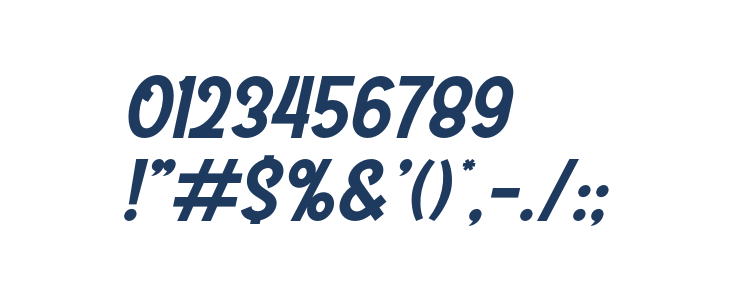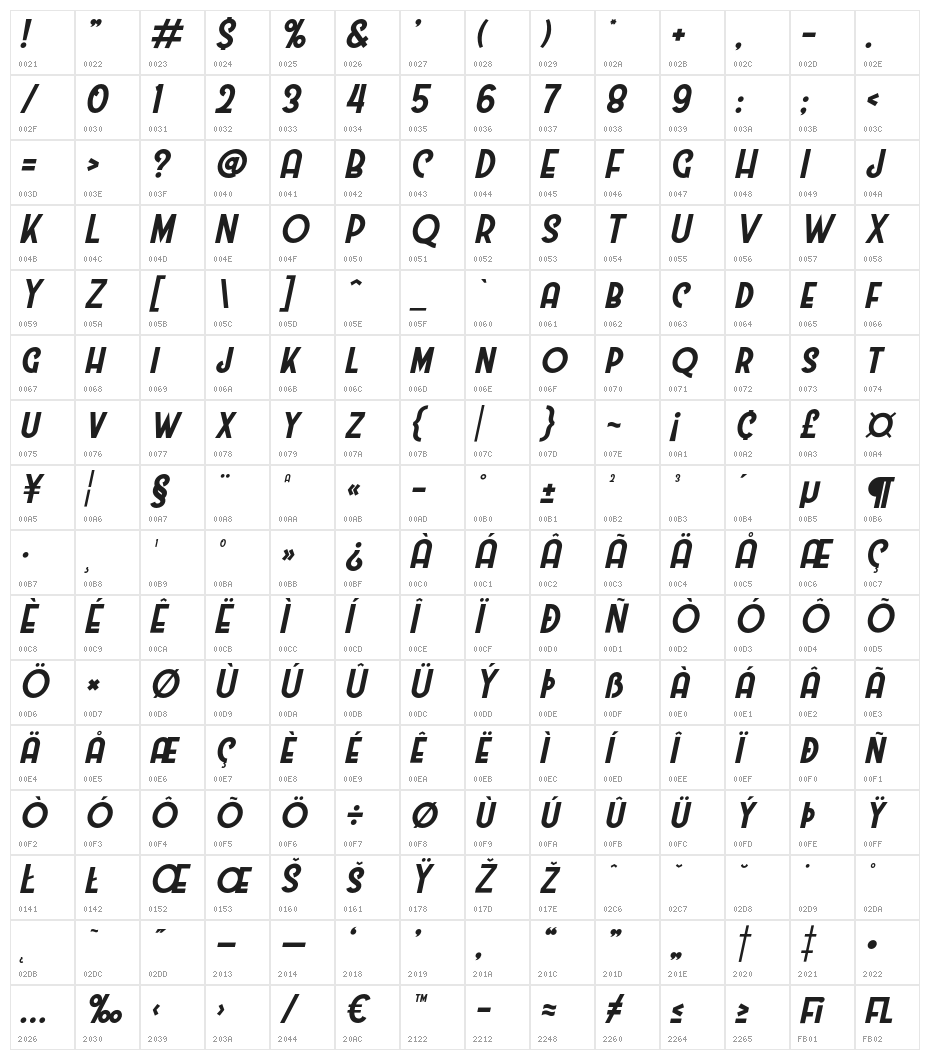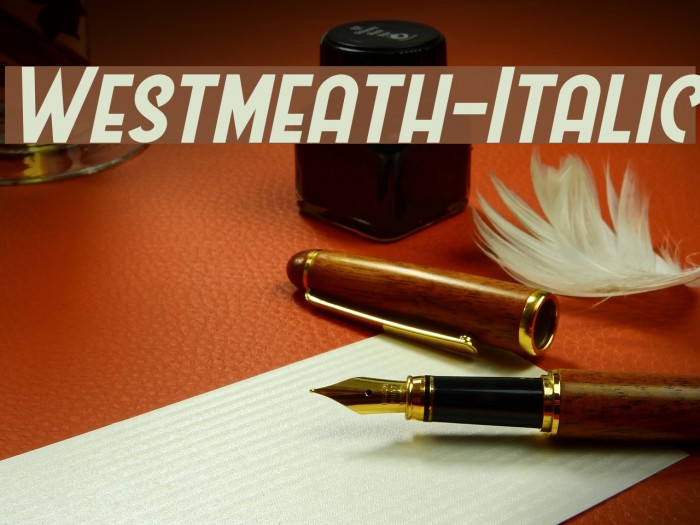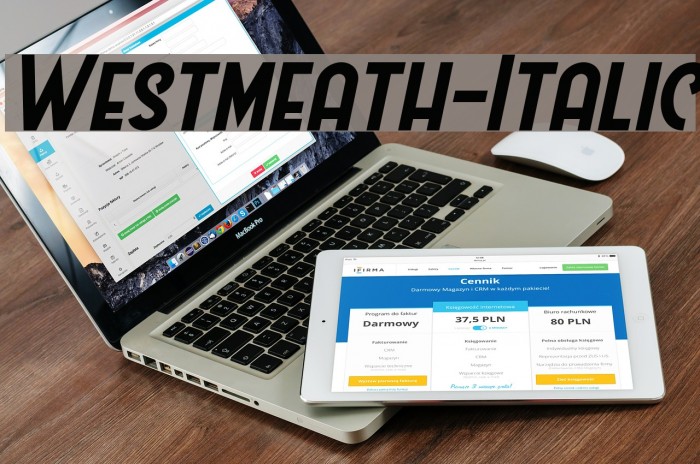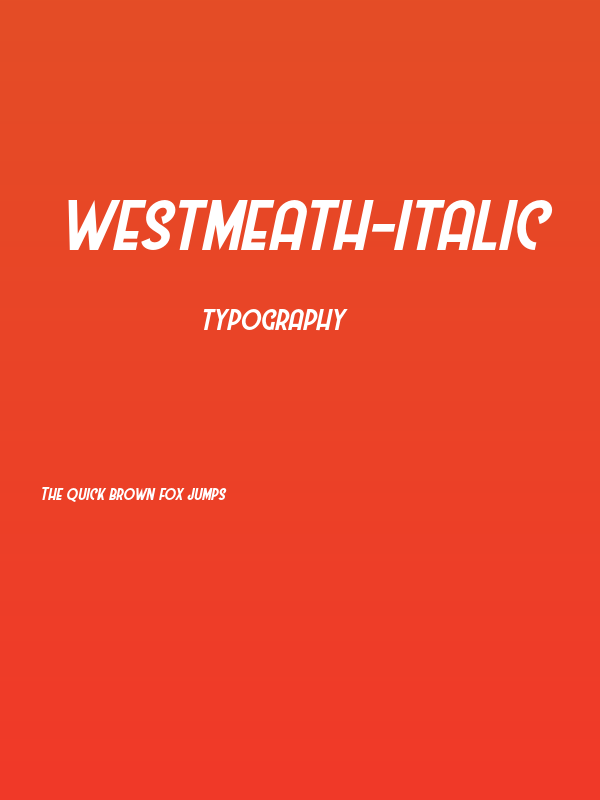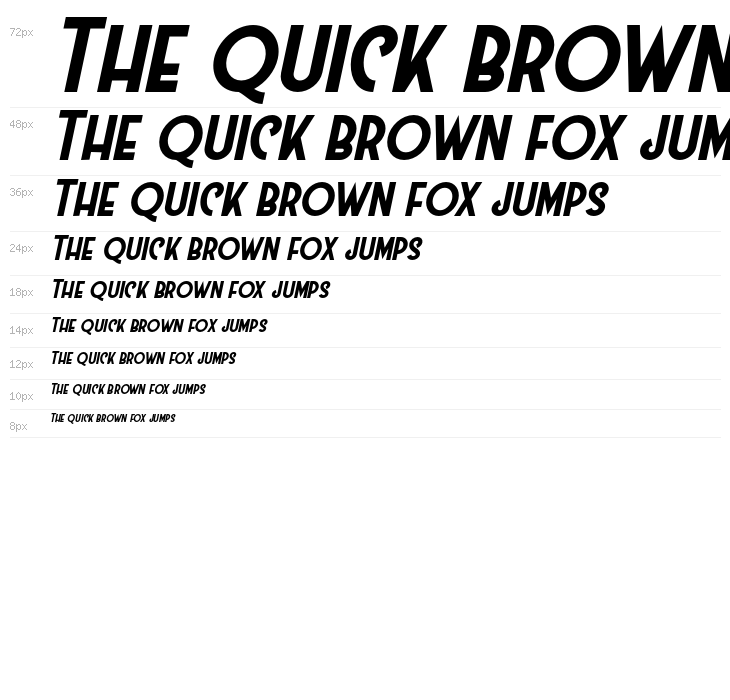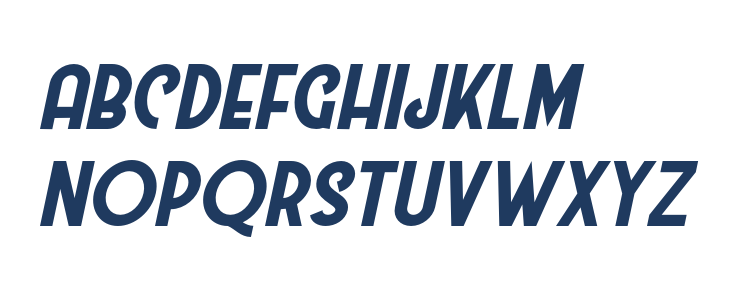
Westmeath-Italic Font
Westmeath-Italic Description
This font features a dynamic and bold italic style, characterized by its strong diagonal emphasis and smooth curves. The letters are slightly condensed, giving it a compact appearance while maintaining readability. The uppercase and lowercase letters are well-proportioned, with a consistent stroke width that adds to its bold presence. The numerals are clear and distinct, matching the overall style of the alphabet. Special characters are included, maintaining the same bold and italicized characteristics. This font exudes a sense of energy and movement, making it suitable for attention-grabbing designs.
| Proposed Projects | Ideal for branding, poster design, and headlines that require a bold and dynamic look. |